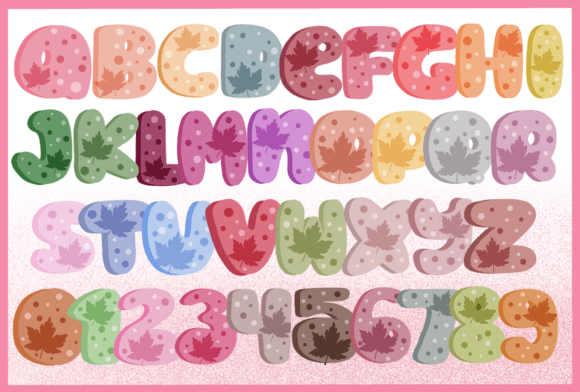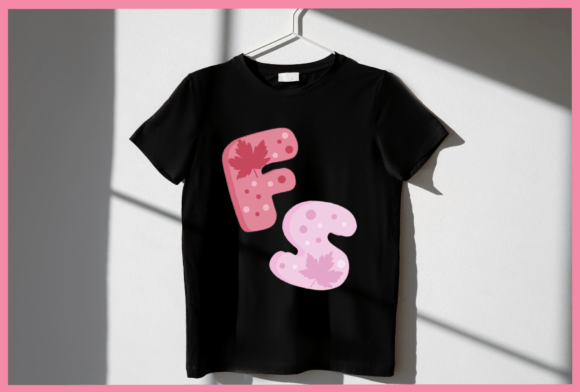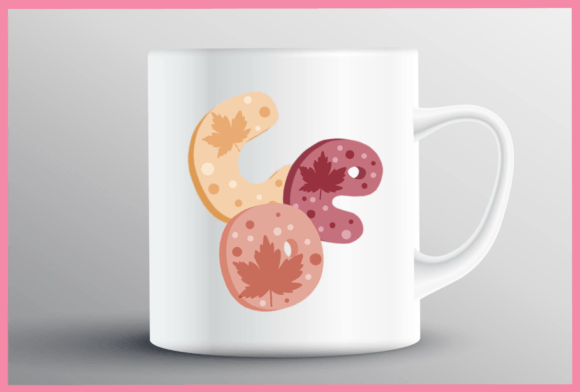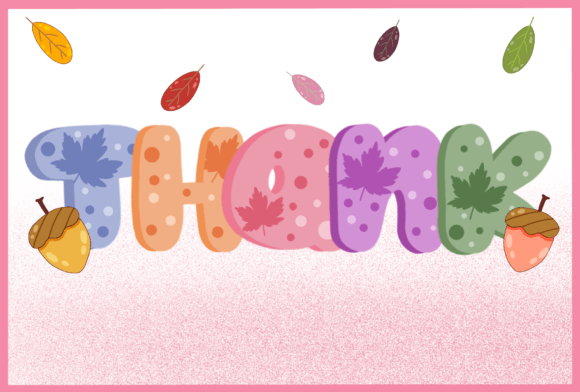
Hello Autumn Font: Bringing Cozy Fall Vibes to Your Designs
As the seasons change and autumn leaves start to fall, designers and crafters are on the lookout for creative ways to capture the cozy essence of the season in their work. One fantastic way to do just that is with the “Hello Autumn” font, a charming and colorful typeface that’s bursting with fall charm.
What is Hello Autumn Font?
“Hello Autumn” is a unique font that’s been carefully crafted to bring the magic of autumn to your designs and messages. Each letter is thoughtfully designed with colorful leaves nestled inside, creating a beautiful and eye-catching effect that’s sure to delight. Whether you’re working on a project for a client or simply want to add a personal touch to your own creations, this font is the perfect choice.
Key Features of Hello Autumn Font
- Colorful Leaves: The standout feature of the “Hello Autumn” font is the colorful leaves that adorn each letter. These vibrant leaves add a pop of color and create a fun, playful effect that’s perfect for autumn-themed designs.
- Autumnal Charm: The font is designed to evoke the cozy feeling of autumn, making it ideal for projects that require a seasonal touch.
- Versatile: This font can be used for a wide range of projects, from digital designs to print materials, and is suitable for both personal and commercial use.
Uses for Hello Autumn Font
The “Hello Autumn” font is incredibly versatile and can be used in a variety of ways to add a touch of autumnal magic to your designs. Here are a few ideas to get you started:
- Autumn-Themed Invitations: Create beautiful and eye-catching invitations for fall events, such as harvest festivals, Halloween parties, or Thanksgiving gatherings.
- Social Media Graphics: Add a seasonal touch to your social media graphics, such as Facebook posts, Instagram stories, or Twitter headers.
- Fall Crafts: Use the “Hello Autumn” font to add a personal touch to your fall crafts, such as scrapbooking, card making, or DIY decorations.
- Branding and Packaging: Incorporate the font into your branding and packaging designs to create a unique and seasonal look for your products.
Tips for Using Hello Autumn Font
To get the most out of the “Hello Autumn” font, here are a few tips to keep in mind:
- Experiment with Colors: The font looks great in a variety of colors, so don’t be afraid to experiment and find the perfect combination for your design.
- Mix and Match: Combine the “Hello Autumn” font with other fonts or graphics to create a unique and eye-catching effect.
- Keep it Simple: Don’t overcomplicate your design – sometimes, the simplest designs are the most effective.
The “Hello Autumn” font is a fantastic way to add a touch of autumnal magic to your designs and messages. With its colorful leaves and cozy charm, it’s the perfect choice for designers and crafters looking to capture the essence of the season. Whether you’re working on a project for a client or simply want to add a personal touch to your own creations, this font is sure to delight. So why not give it a try and see how you can use the “Hello Autumn” font to bring a little bit of fall charm to your work?